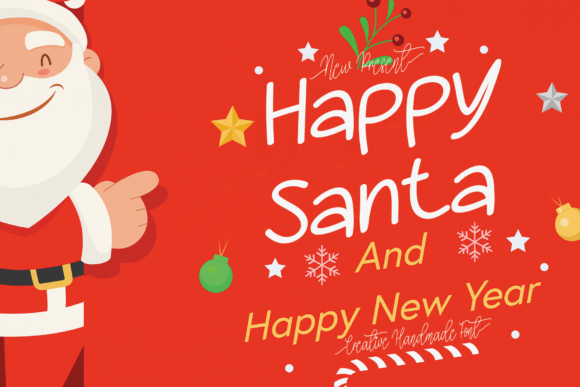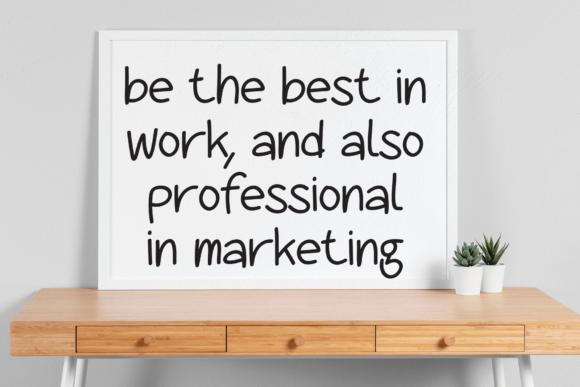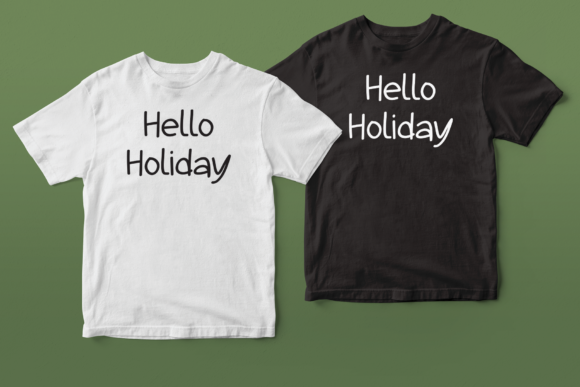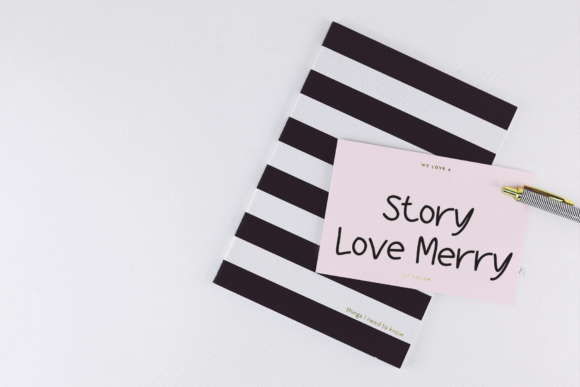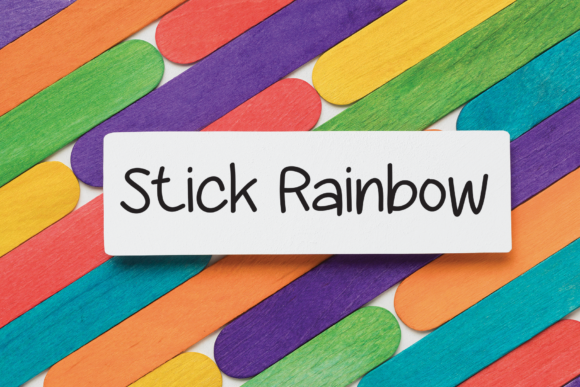
Happy Santa Font
Happy Santa is a cute and quirky handwritten font. Its informal style and casual vibe will make this font a go-to choice for each of the creations that require a relaxed touch.